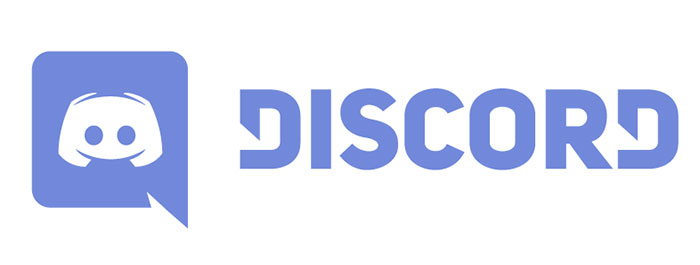
The Discord Font Or What Font Does Discord Use Answered
The background is also now a bolder purple colour.
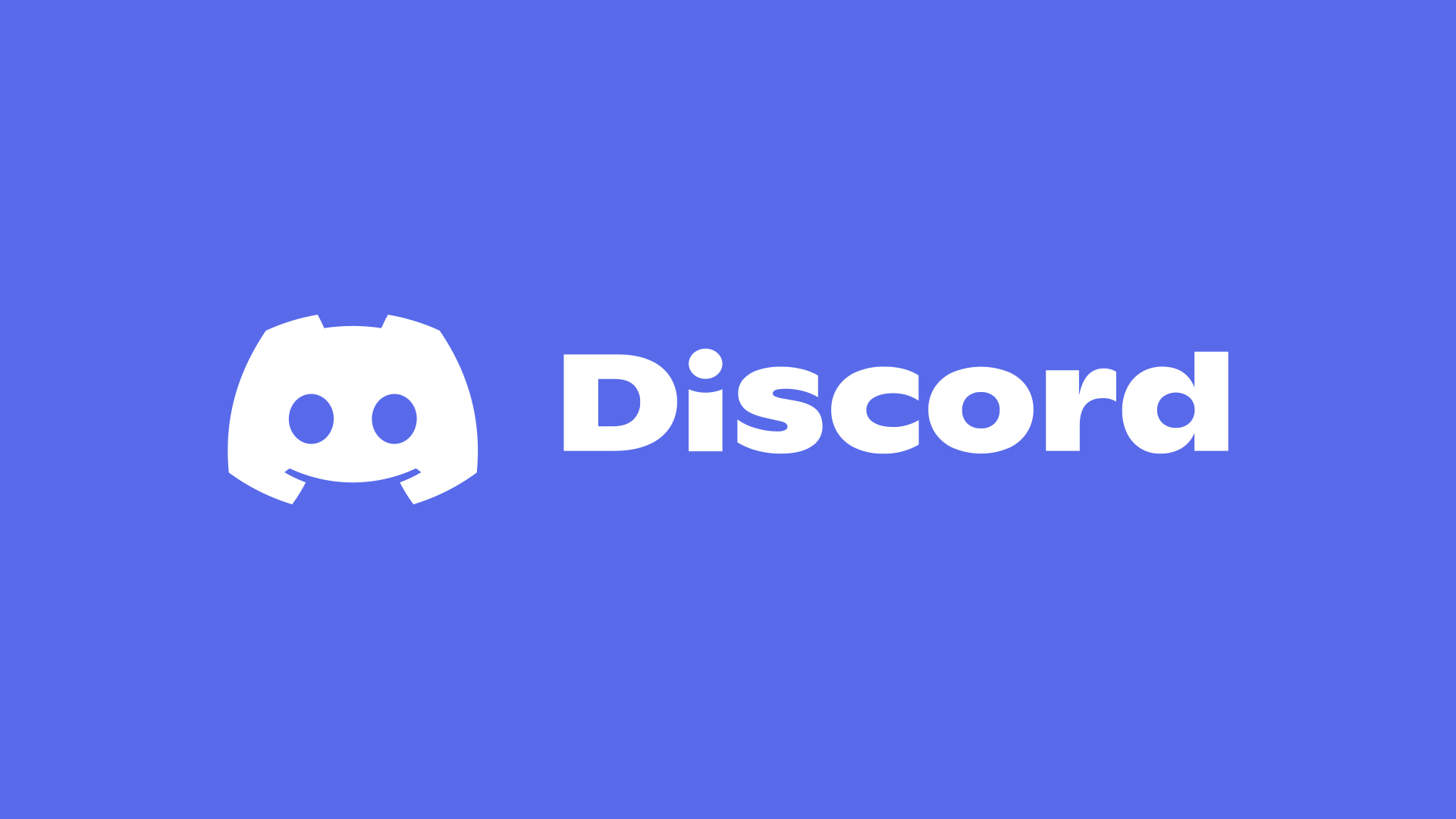
Discord released a new logo on may 13, 2021. Getting a fresh new discord name font or message is extremely simple. After typing you will see a lot of fancy fonts are displayed below, there are unlimited random fonts available that.
Pages like discord don’t allow you to change the default font, but using this generator you can avoid it so you can post more than bold and underlined text in your chat messages. Discord font changer has many style that you can use as per your choice. The biggest and most divisive change, however, has been the font.
In the text input box, enter any message/username/chats and then simply click on any font format you liked. This page allows you to generate discord fonts that you can use in your chats. The new font is custom built, based on ginto, according to discord.
Using the above forms you can convert text into all. So friend right place discord fonts generator name creator open you can copy the right place name a new design name before and after your name by copying the symbol very simple way. When we are looking at the font that is used for the discord logo, the font is called the uni sans heavy.
Getting a fresh new discord name font & message is extremely simple. It’s enough to be truly original. To make use of yellow color is a little bit different than the other colors above.
Discord doesn't allow you to change the font by default, but using this generator you can get around that so that you can post more than just bold and underlined text in your chat messages. With the help of the discord font generator, users of the discord name font can write their text as they pick out a font style to their liking. Find a discord font generator, type in the text you want to modify, select your style from the options presented, copy and paste into discord.
There are no choices for fonts for discord, just the ability to emphasize text through various basic styles, such as bold, underline and italic. Discord fonts generator 🎮 text maker to copy and paste › most popular law newest at www.exoticfonts.com courses. Only one paragraph without any new line break is allowed within a set of yellow text code.
Discord logo font is the modified version of uni sans heavy font. When we are looking at the font that is used for the discord logo, the font is called the uni sans heavy. The thin and heavy weights (with caps only) can be downloaded for free here.